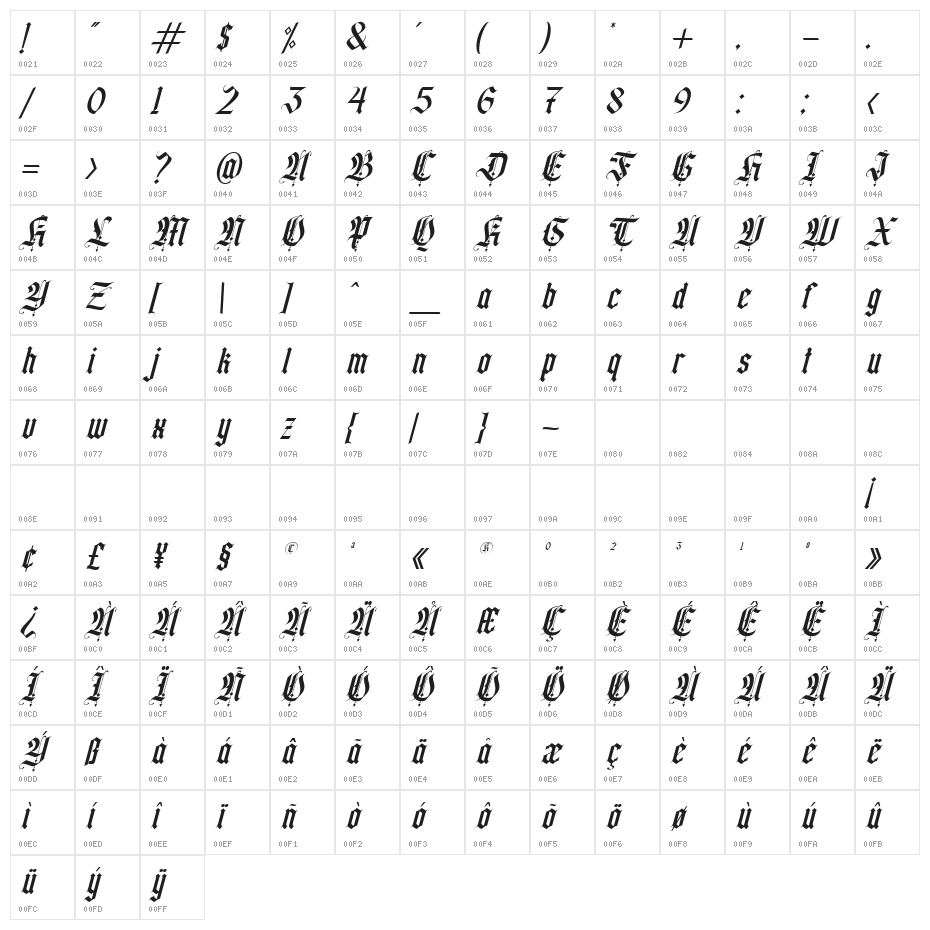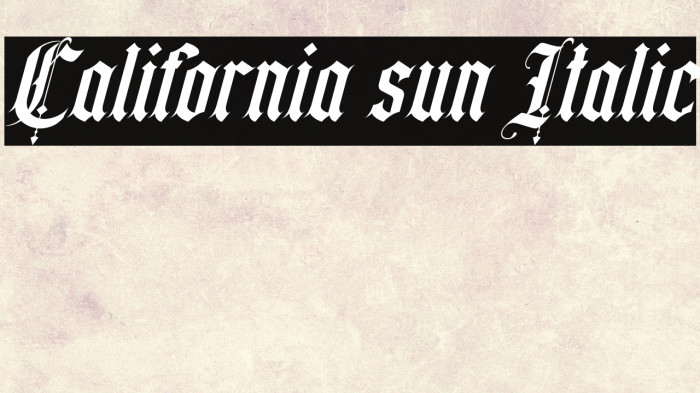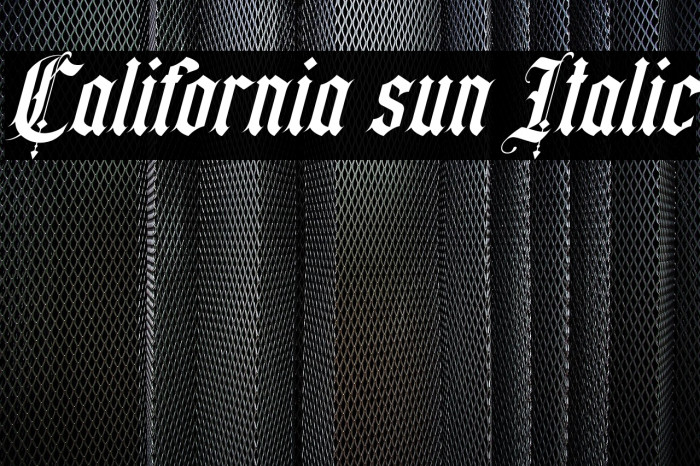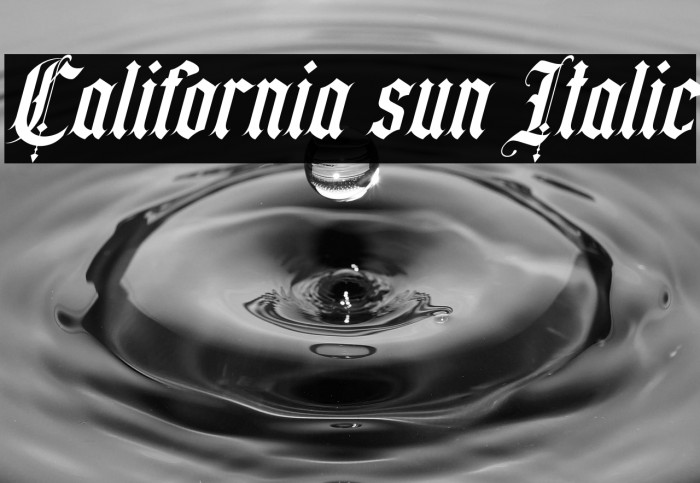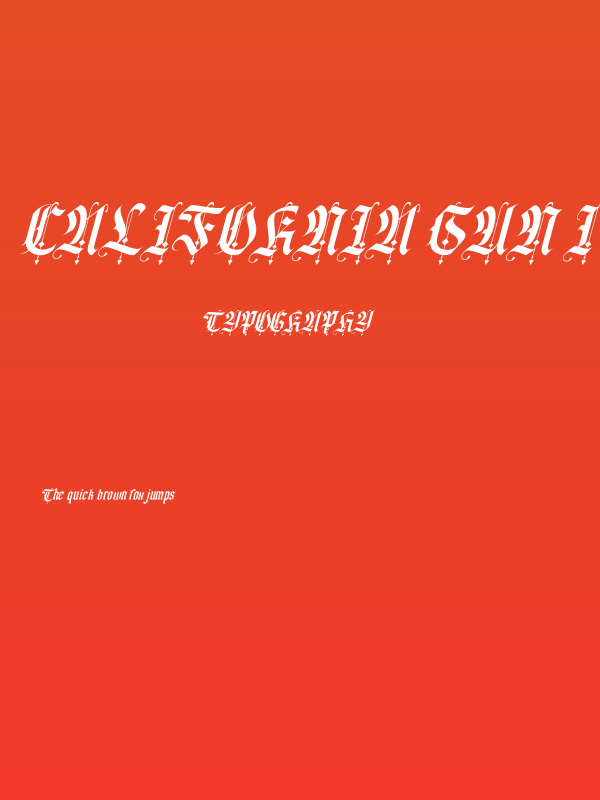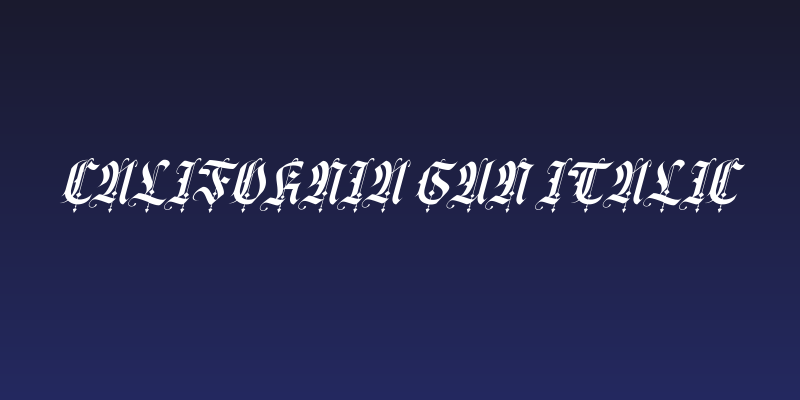
California sun Italic Font
California sun Italic Description
This font exhibits a classic blackletter style with a modern twist, characterized by its sharp, angular strokes and intricate detailing. The uppercase letters are ornate, with decorative elements that enhance their gothic appearance. The lowercase letters maintain a consistent style, offering a slightly more streamlined look while preserving the overall aesthetic. Numbers and special characters are designed to match the elaborate style of the alphabet, ensuring a cohesive appearance across all glyphs. The italic slant adds a dynamic feel, making it suitable for projects that require a touch of elegance and historical flair.
| Proposed Projects | Ideal for branding, tattoo designs, gothic-themed posters, and historical event invitations. |